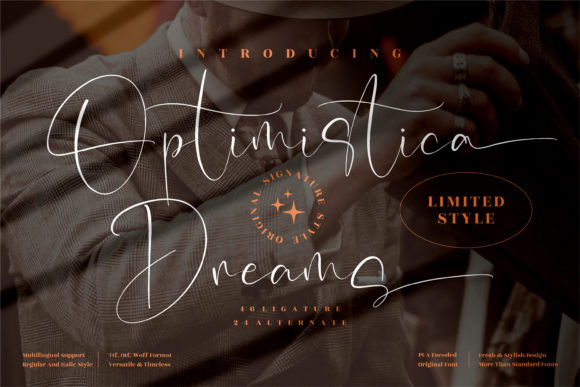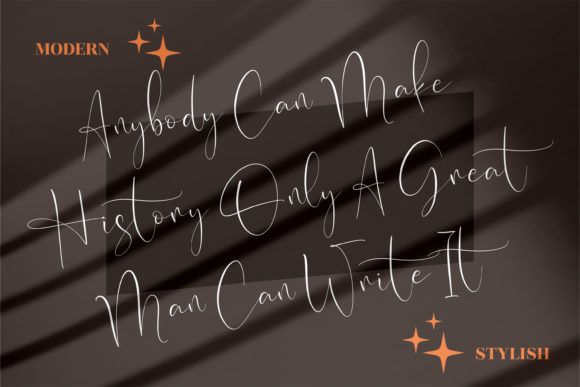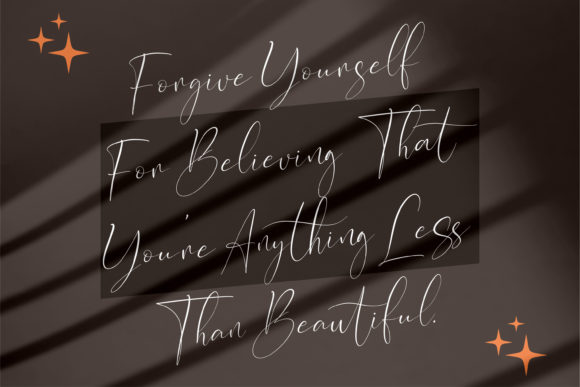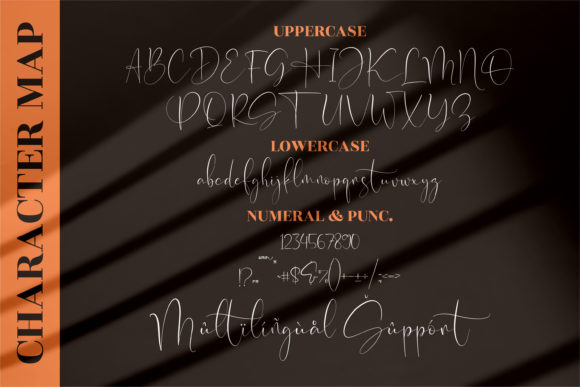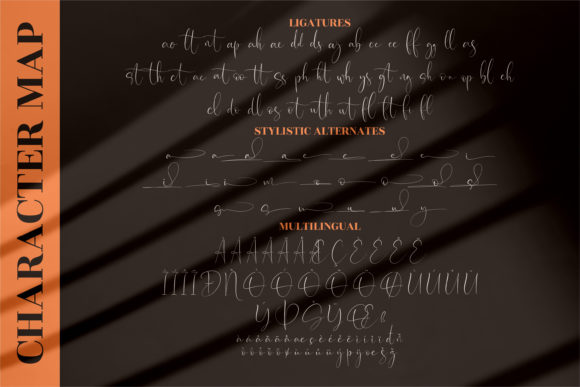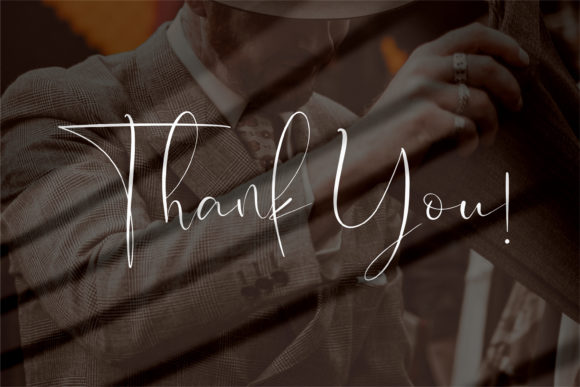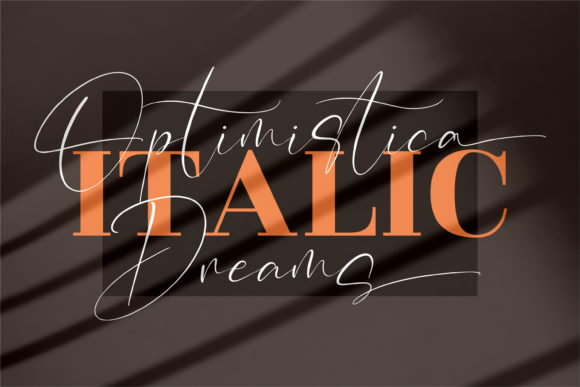
Optimistica Dreams Font
About Optimistica Dreams Font
Optimistica Dreams is a thin lettered and graceful script font. Fall for its ravishing style and use it to create gorgeous wedding invitations, beautiful stationary art, eye-catching social media posts, and much more! Optimistica Dreams is PUA encoded which means you can access all glyphs and swashes with ease!